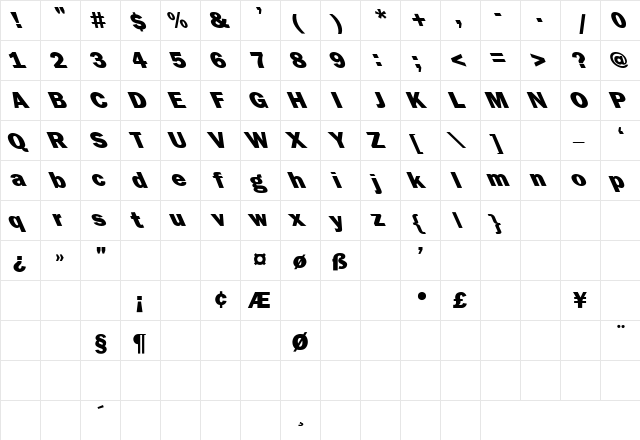
Franklin Gothic-Heavy-Lefty Regular
Design Context for Franklin Gothic-Heavy-Lefty Typeface
Franklin Gothic-Heavy-Lefty has the quiet confidence of well-executed sans-serif typography: versatile, unobtrusive, and dependable at any size.
Font Pairing: Works well alongside a characterful serif or display font that can carry the expressive load while Franklin Gothic-Heavy-Lefty handles the functional copy.
Pro Tip: Use Franklin Gothic-Heavy-Lefty for UI labels, navigation, and short-form body copy where clean legibility is the priority.